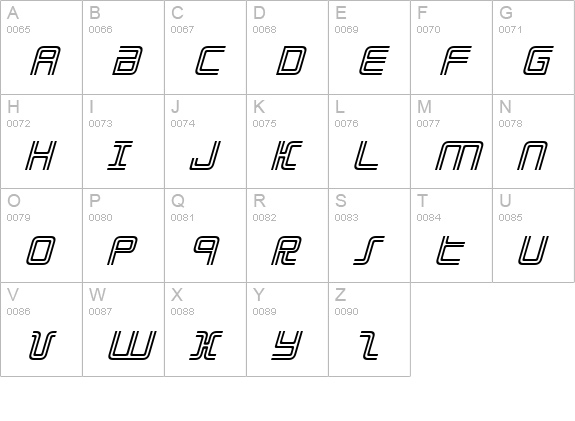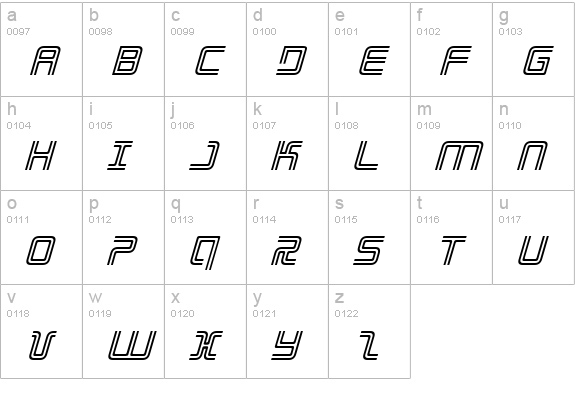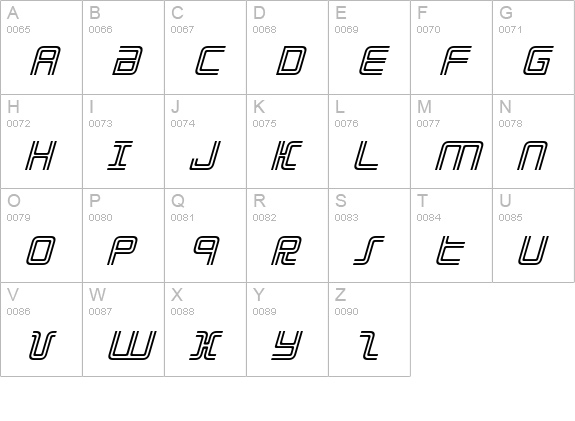
Election Day Italic is a distinctive, italic variant in the Election typeface family \xE2\x80\x94 well suited to design and typography projects.
Election Day is a versatile and elegant italic font that exudes sophistication and style. With its sleek and modern design, this font is perfect for adding a touch of class to any project. Whether you're creating invitations, posters, or branding materials, Election Day will elevate your design to the next level. The italic style of this font adds a sense of movement and flair, making your text stand out and grab attention. Its clean lines and graceful curves give it a timeless appeal that is sure to impress. Best of all, Election Day is free to download at FontsMarket.com. So go ahead and add this stunning font to your collection today and watch your designs come to life with a touch of elegance and charm.